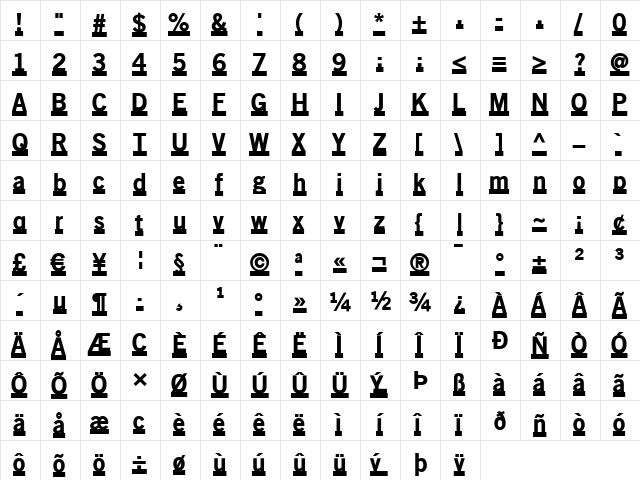
OldSansBlackUnderline Regular
Design Context for OldSansBlackUnderline Typeface
OldSansBlackUnderline offers clean, dependable letterforms without strong stylistic allegiance, making it a practical choice for designers who need flexibility.